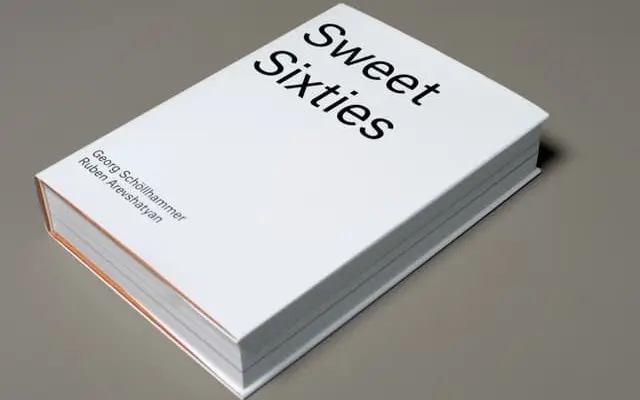
Neutral specimen from Typotheque
A deliberately characterless grotesque from Typotheque, designed to disappear into the text rather than assert a typographic voice.
Three weights from Regular to Bold, each with a matching italic, plus a variable font, make up a family built around the idea of typographic absence. The name is the brief: Neutral strips away distinguishing features to produce a grotesque that neither distracts nor date-stamps the work around it. Suited to editorial, institutional and screen contexts where the writing, not the type, should hold attention.
Neutral is a restrained grotesque sans-serif with minimal personality by design, intended to function as an invisible vehicle for text rather than imposing a typographic character of its own.